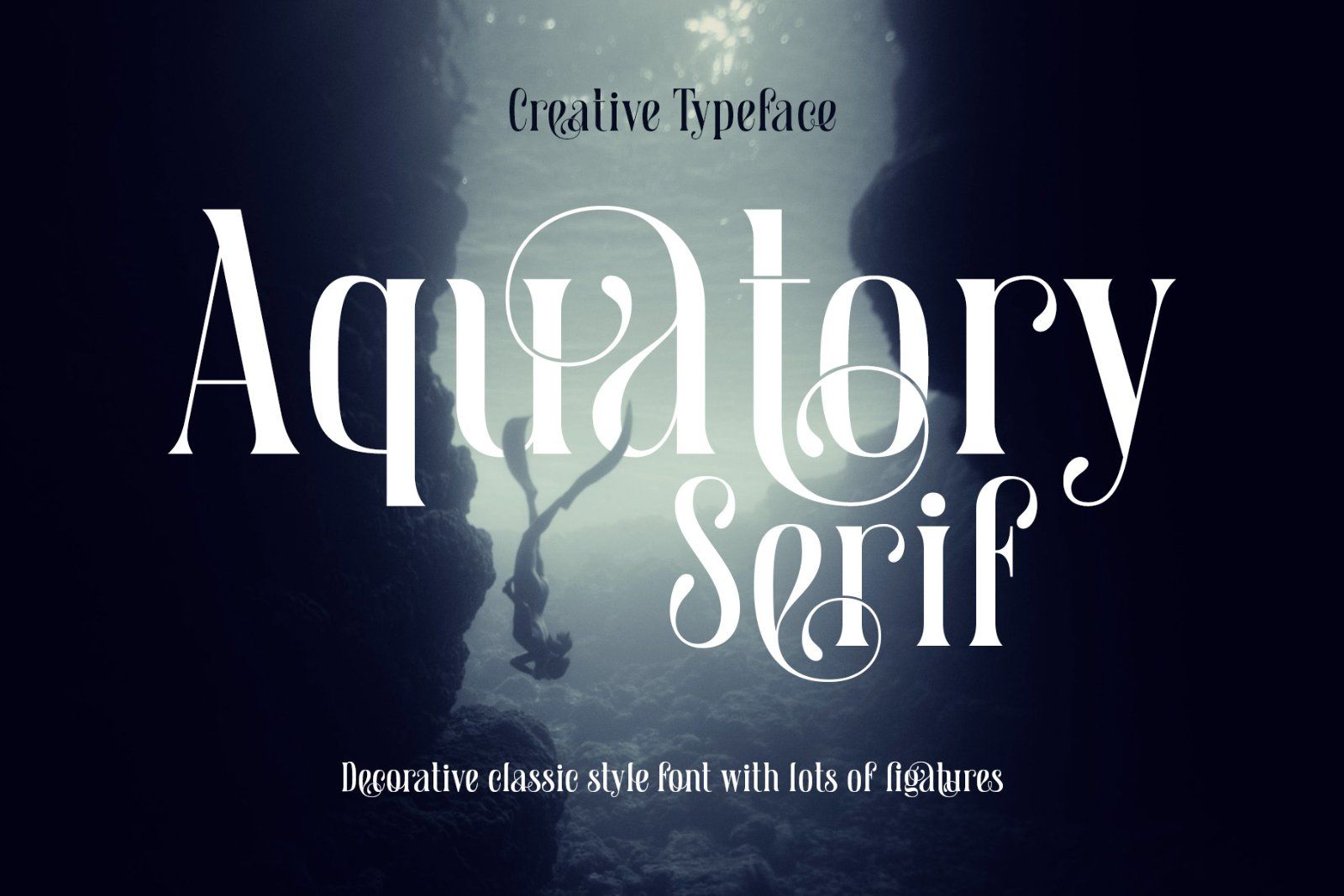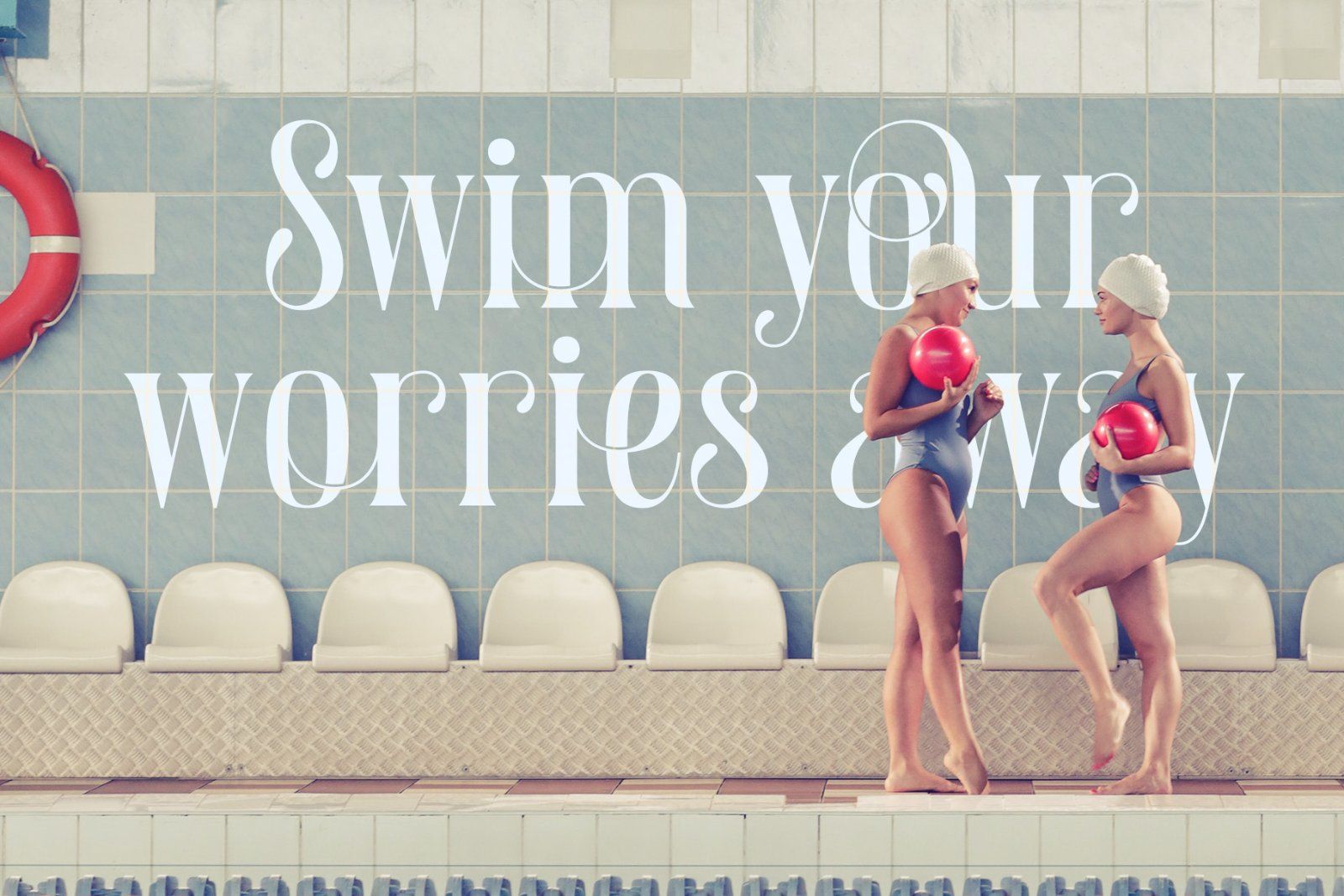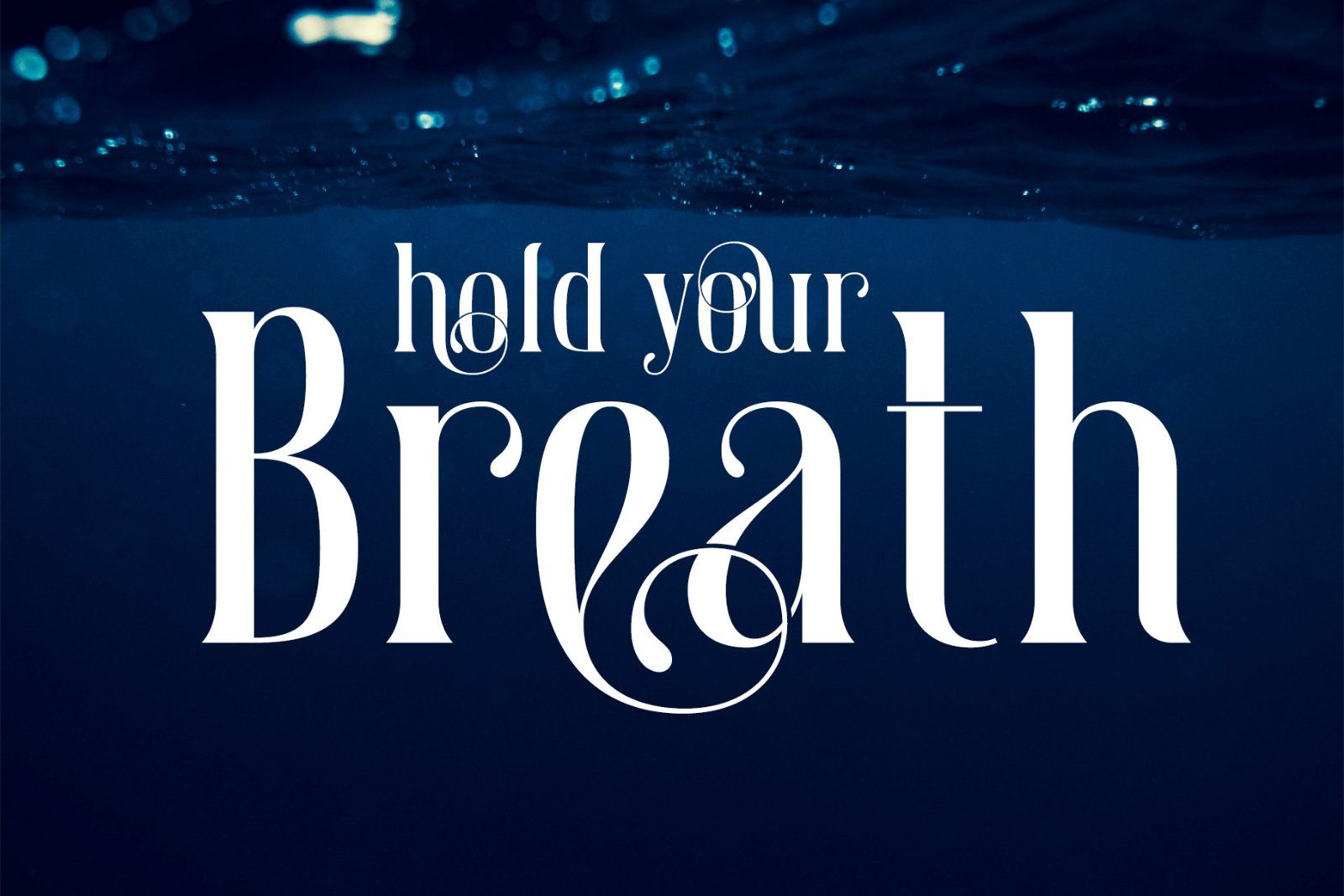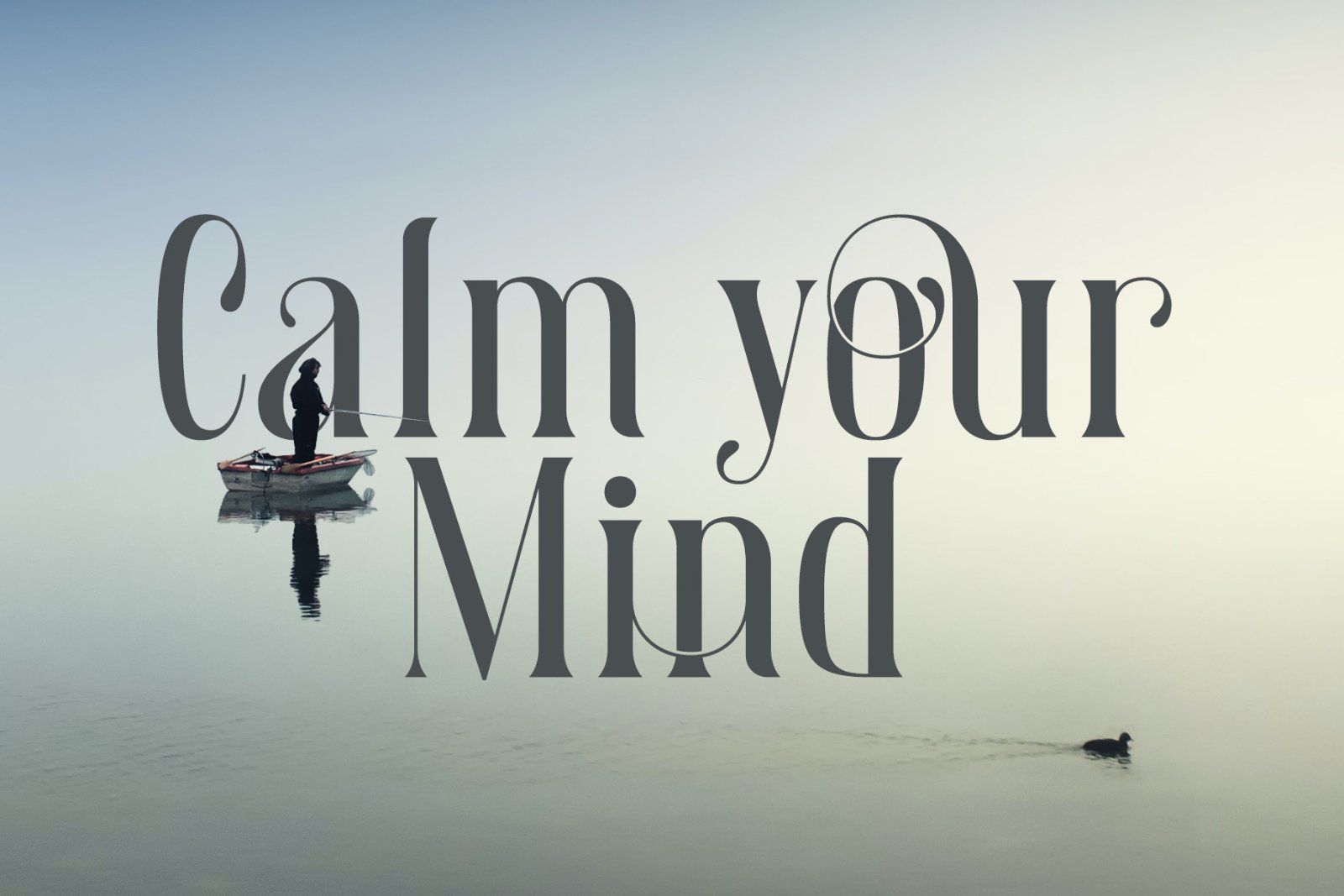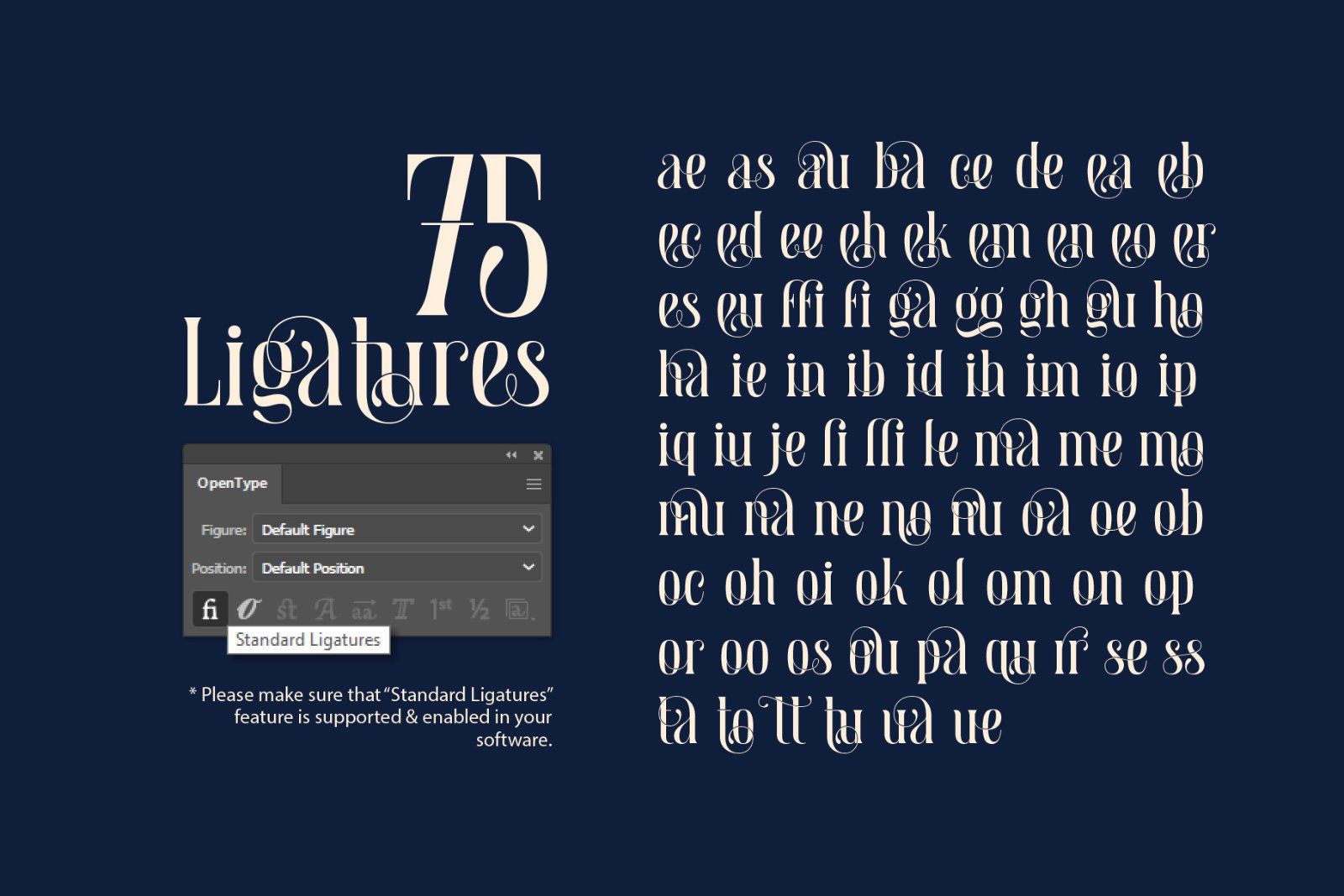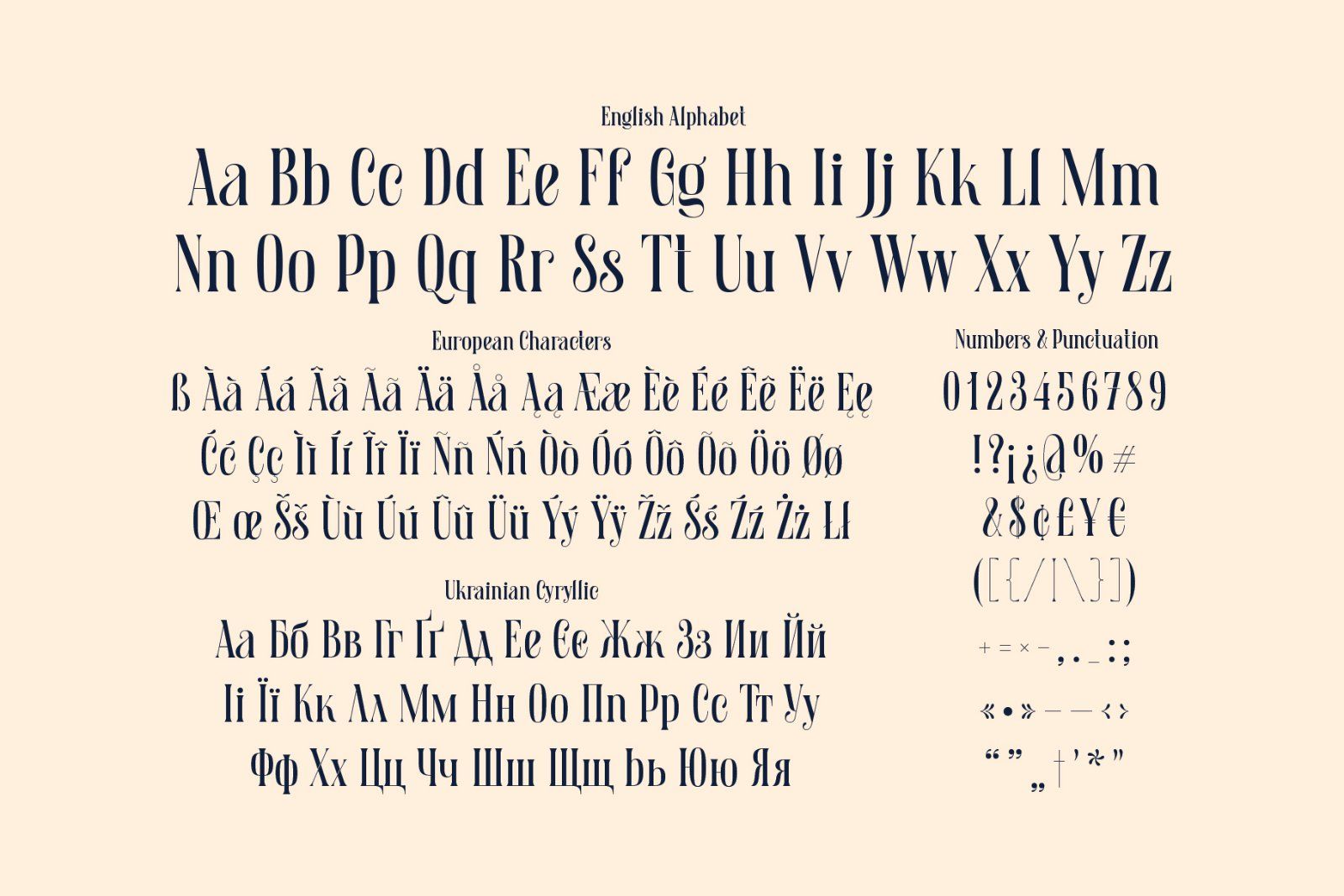
Hi, presenting a classic style font Aquatory Serif. It's a decorative classic style typeface with lots of ligatures and thin high contrast shape. A descent advantage of this font is a set of 75 ligatures for small letters. Aquatory Serif font supports most of the European languages and also has Ukrainian Cyrillic characters.